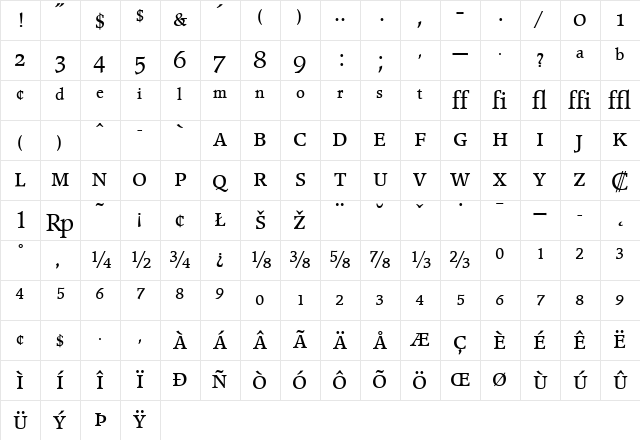
Poppl-PontifexBEExpert Roman
Design Context for Poppl-PontifexBEExpert
Poppl-PontifexBEExpert is a composed and adaptable typeface that performs quietly and consistently across a wide range of design contexts.